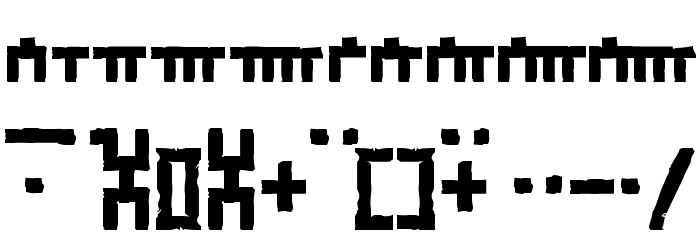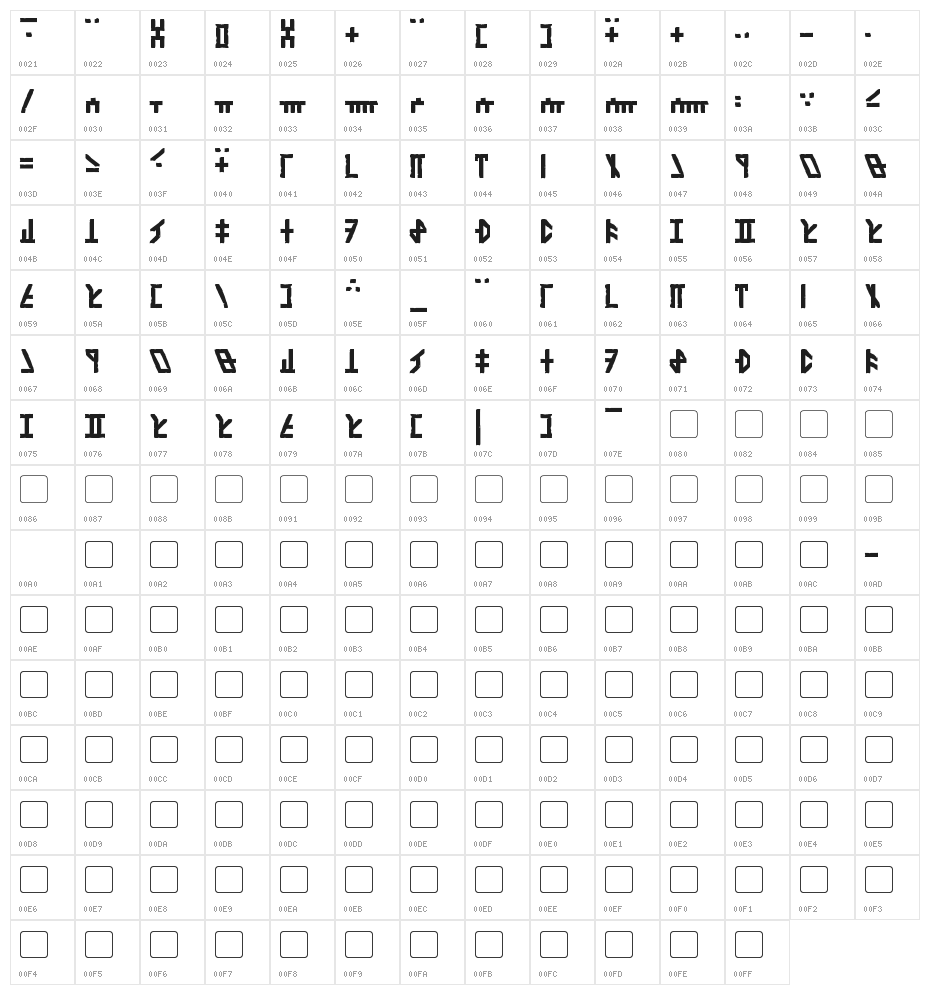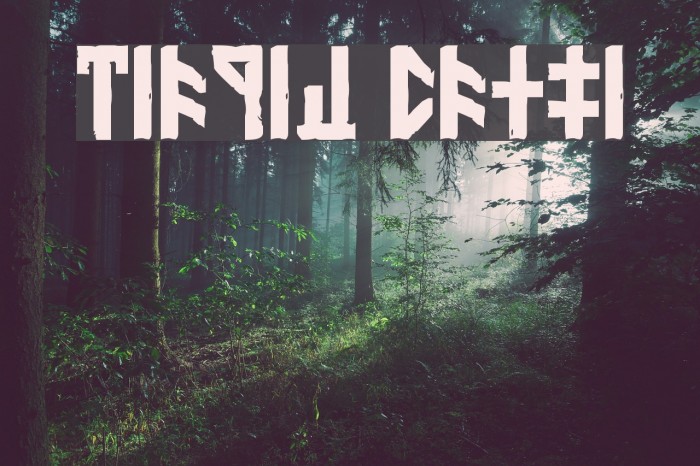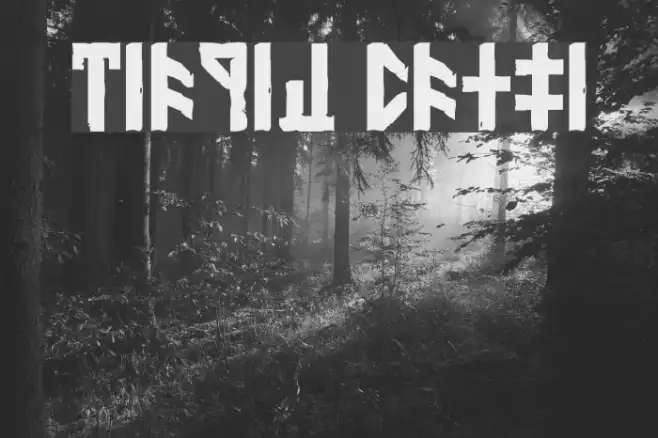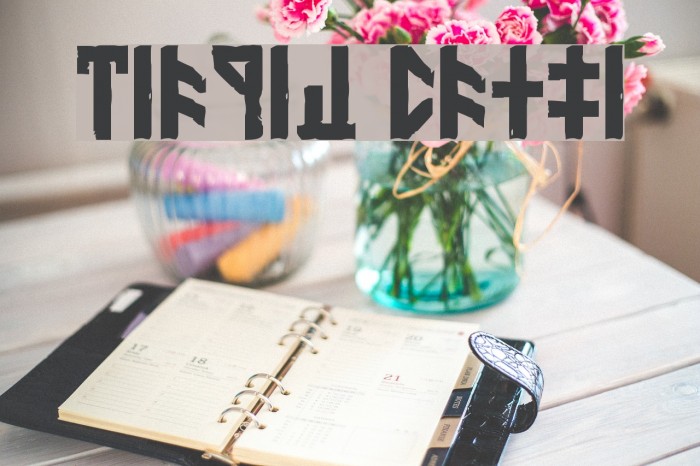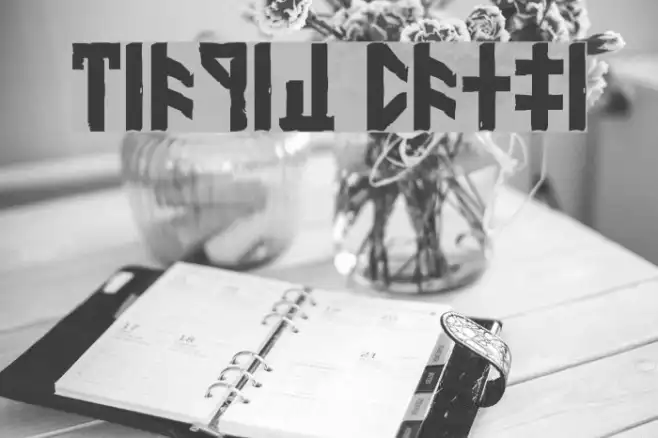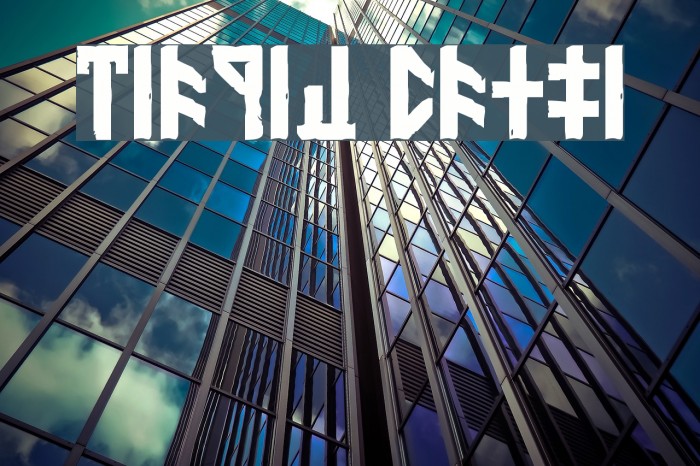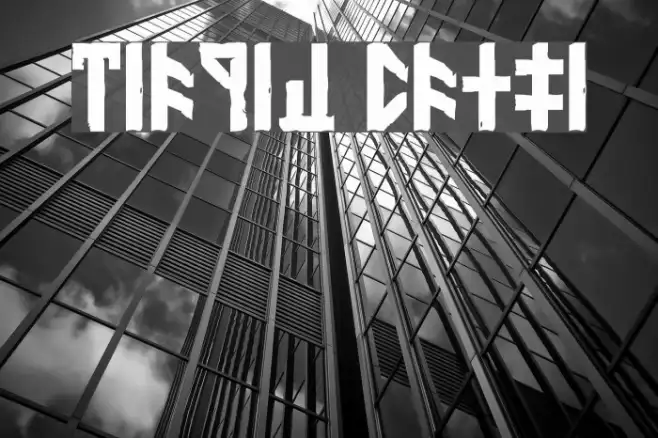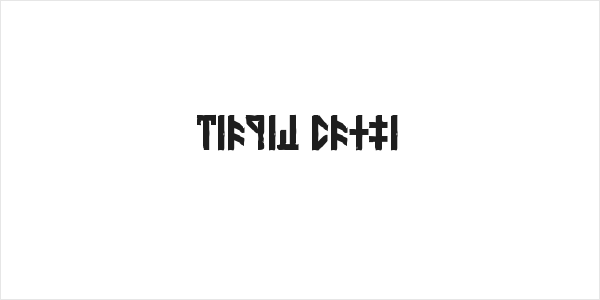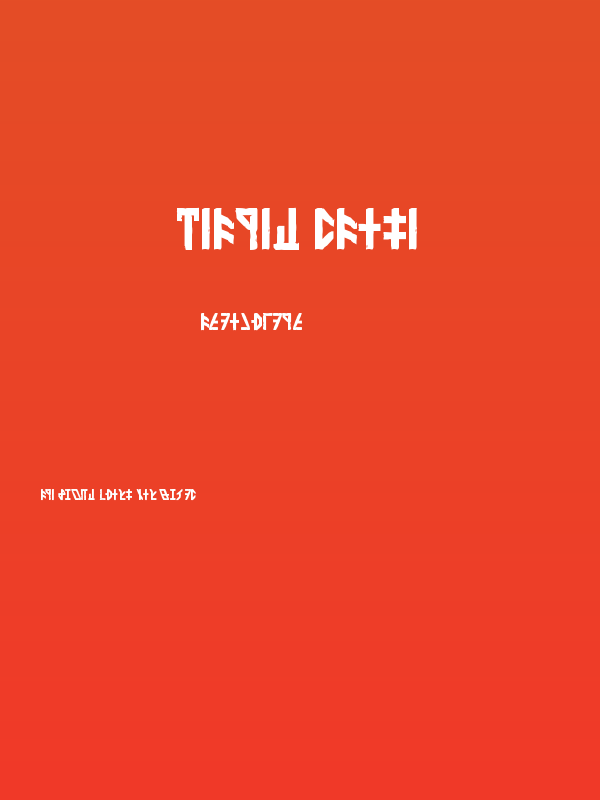
Dethek Stone Font
Dethek Stone Description
This font features a bold, angular design reminiscent of ancient runic inscriptions. The characters are blocky and geometric, with sharp edges and a rugged appearance that suggests a stone-carved aesthetic. The uppercase and lowercase letters share a similar style, maintaining consistency throughout the set. The numerals and special characters are designed to match the overall theme, contributing to a cohesive look. This font's unique style makes it stand out, offering a distinct and memorable visual impact.
Proposed ProjectsIdeal for fantasy-themed projects, game design, book covers, or any creative work requiring a mystical or ancient feel.